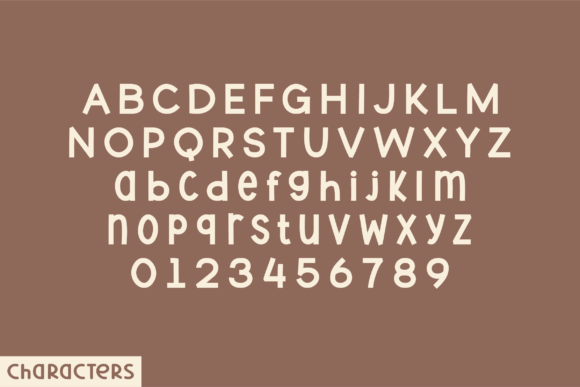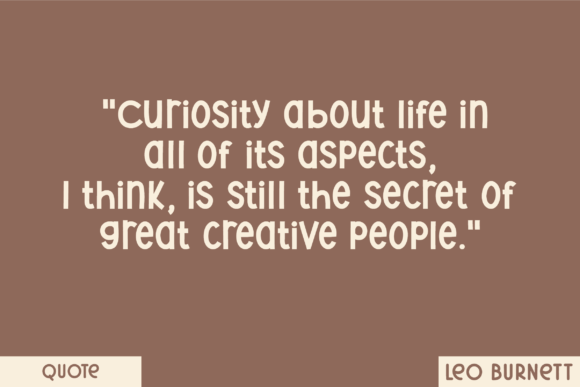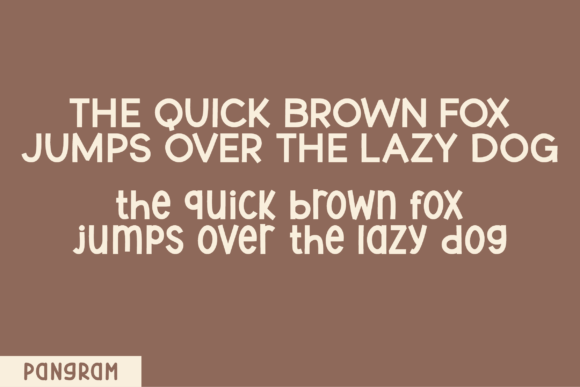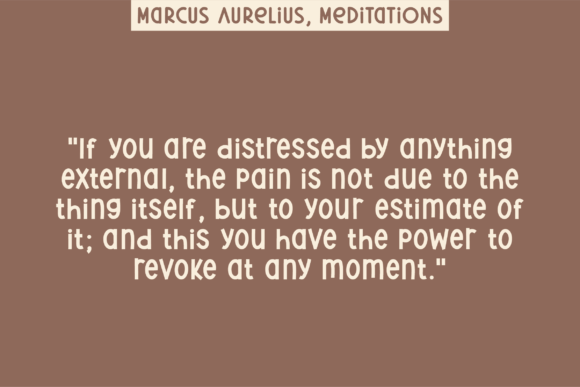
The Canapes Font: A Unique Sans Serif for Creative Projects
I still remember the frustration of working on a design project, hours spent searching for the perfect font, only to end up with something that just didn’t feel right. My client wanted a quote design that was both elegant and playful, but every font I tried seemed to fall flat. That’s when I stumbled upon Canapes, a natural sans serif font that completely transformed my design. In this article, I’ll share my experience with Canapes, its unique features, and how to make the most of it in your creative projects.
What Makes Canapes Special?
Canapes is a one-of-a-kind font, created without altering a single node in each character’s indentation. This distinctive approach gives Canapes a unique charm that’s hard to find in other fonts. **It’s perfect for quotes, notes, tees, and any product design** where you want to add a touch of personality.
Honest Review: The Good and the Quirks
Here’s what I love about Canapes:
• ✨ Unique and distinctive character set
• ✅ Natural and elegant sans serif design
• 💡 Perfect for quotes, notes, and creative projects
• 🎨 Highly versatile for various design applications
And here are some minor quirks to consider:
• 🤔 Limited language support (but great for English and similar languages)
• ⚠️ Some characters may require manual kerning for optimal spacing
The Story Behind Canapes
Canapes was designed with a passion for unique typography. The creator aimed to craft a font that would stand out in a sea of similar sans serifs. By preserving the original node structure of each character, Canapes achieved a distinctive look that’s both natural and elegant.
What makes Canapes unique? Canapes is unique due to its creation without changing a single node in each character’s indentation, giving it a distinctive character set.
Is Canapes suitable for body text? While Canapes is elegant and easy to read, it’s better suited for headlines, quotes, and creative projects rather than long-form body text.
Does Canapes support multiple languages? Canapes has limited language support, but it’s great for English and similar languages.
Canapes is a unique and versatile font that’s perfect for adding a touch of elegance and playfulness to your creative projects. With its distinctive character set and natural sans serif design, it’s sure to become a favorite in your font collection.